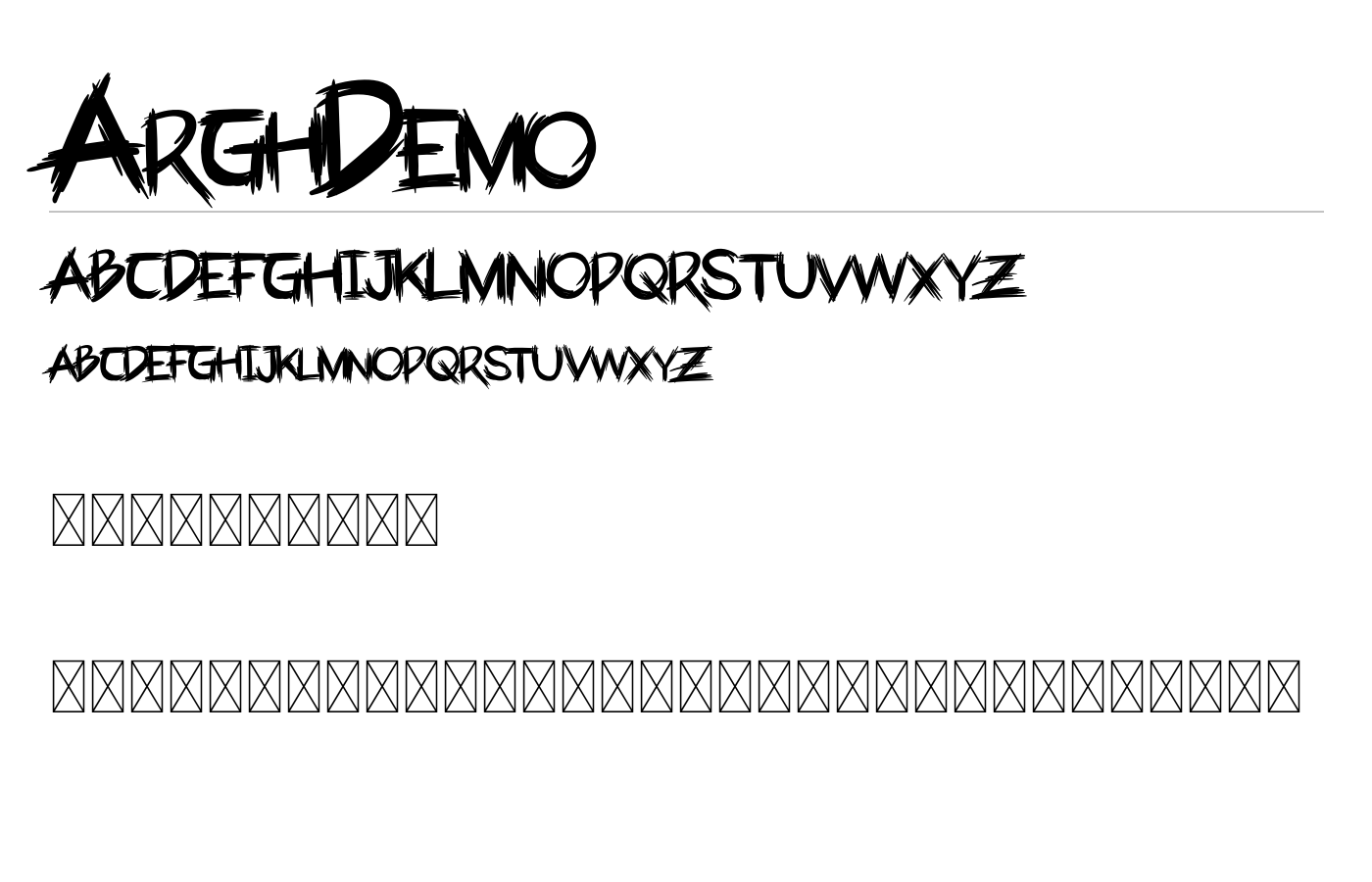
ArghDemo Font is a bold, hand-drawn sans serif typeface with an energetic, rough brushstroke style that conveys a raw and edgy personality. Its uneven lines and dynamic shapes make it perfect for creative, informal designs like posters, logos, and branding that need a striking, rebellious vibe. This font shines in headlines and display use where a strong, artistic impact is desired.
ArghDemo Font
About ArghDemo Font
| Font family | ArghDemo Font |
| Designer | Esa Prasetio Nugroho |